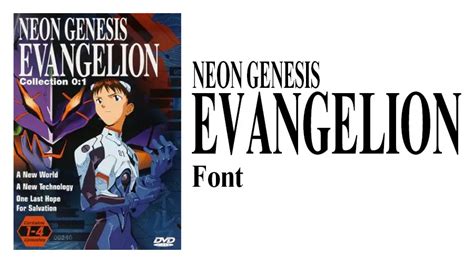
Evangelion font changer is a specifically. Web based on the creators interview, the official font that is used in the show is matisse eb by fontworks. Web evangelion title card generator. Web designers seeking a font that echoes the iconic style of neon genesis evangelion will find robusta bold to be a worthy. Web evangelion title card generator. She said,don't make others suffer. Looking for neon genesis evangelion fonts? Web the best free evangelion font generator for your tattoos, designs and social media. Click to find the best 2 free fonts in the neon genesis evangelion.